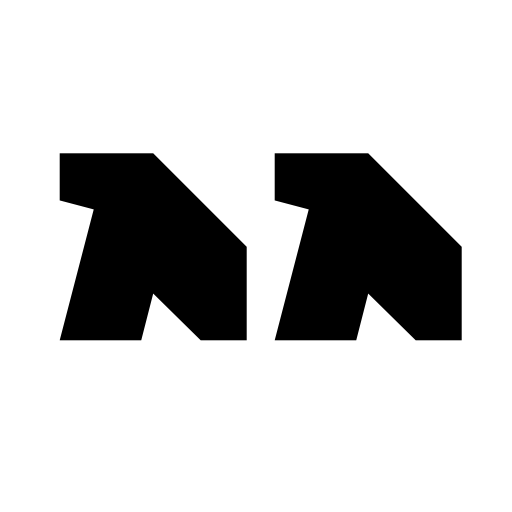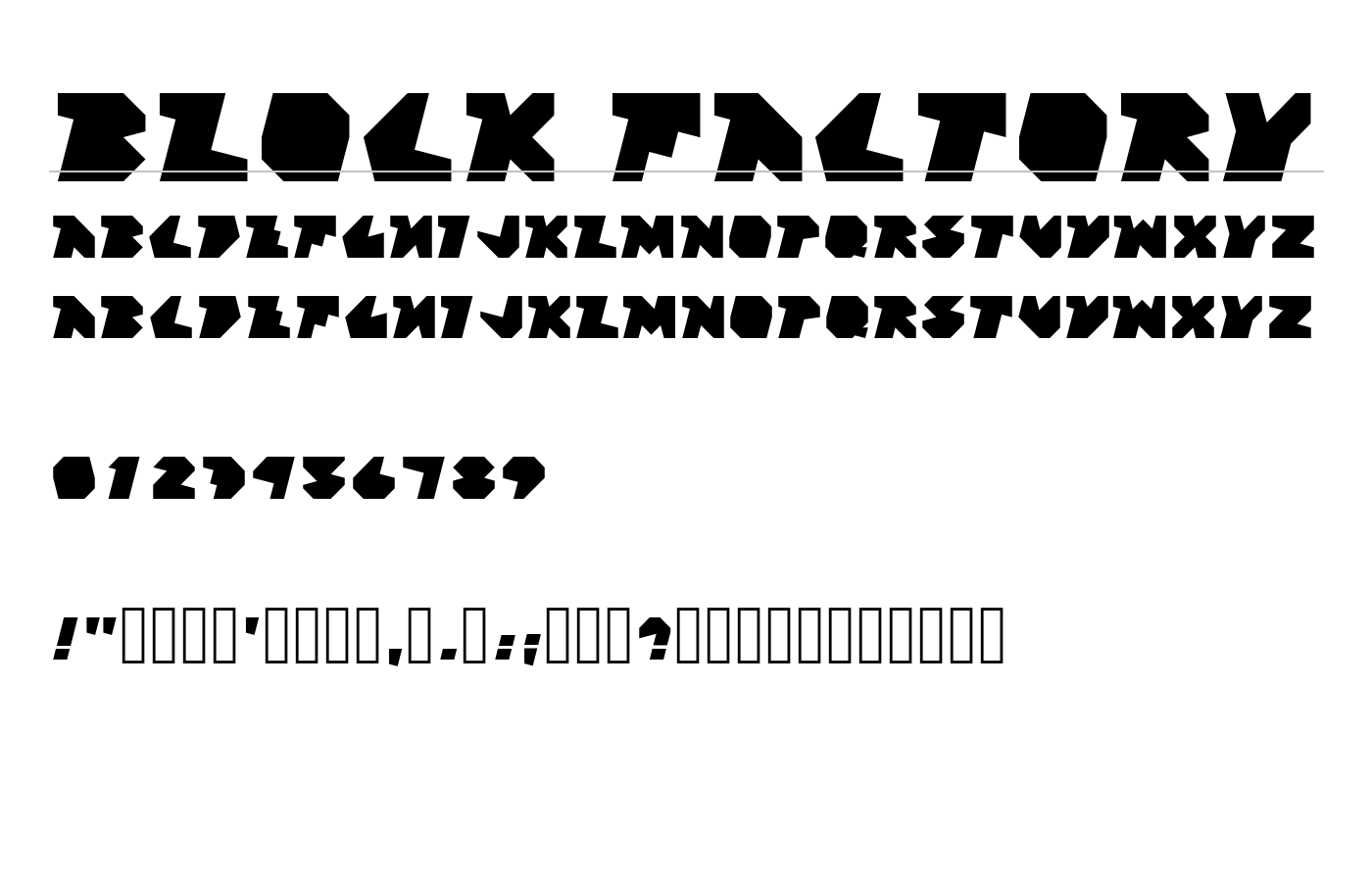
Block Factory is a bold, geometric sans serif font with a strong industrial vibe, characterized by sharp, angular shapes and heavy weight. Its unique, blocky letterforms create a striking presence that works best for headlines, logos, and designs seeking a rugged, modern, and eye-catching style. Perfect for branding and projects that want to convey strength and creativity with a contemporary edge.
Block Factory Font